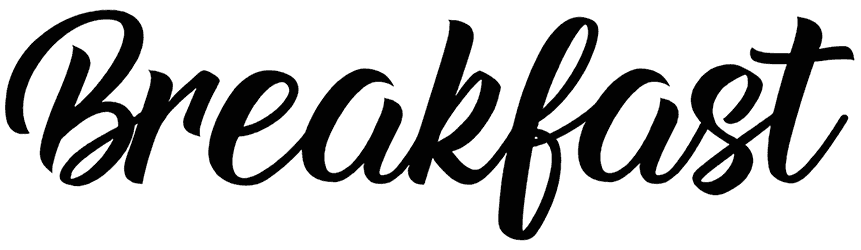
Breakfast Font
Breakfast is a script font that features semi-bold and wavy characters. It can be utilized for printed quotes, cosmetic packages, applications, and many other things. This case will bring a soft and artistic feel to your…
Breakfast is a script font that features semi-bold and wavy characters. It can be utilized for printed quotes, cosmetic packages, applications, and many other things. This case will bring a soft and artistic feel to your design. What are you waiting for? Don’t hesitate and click on the download button right now!